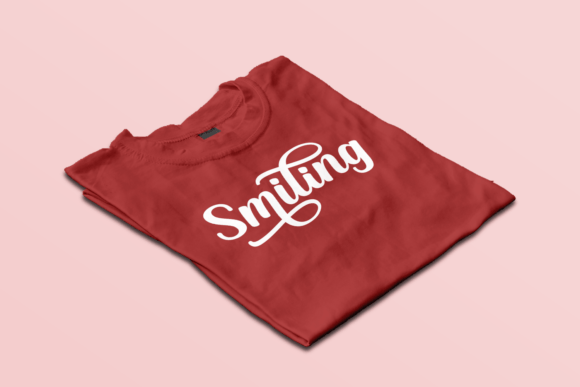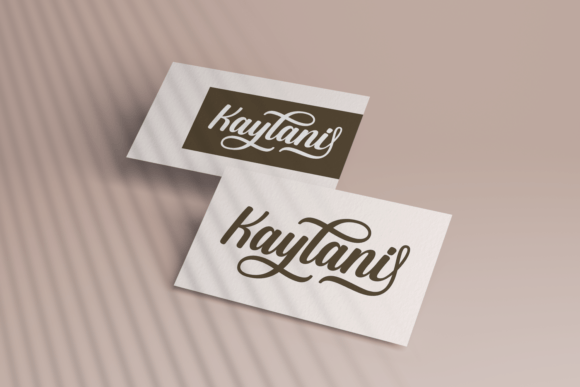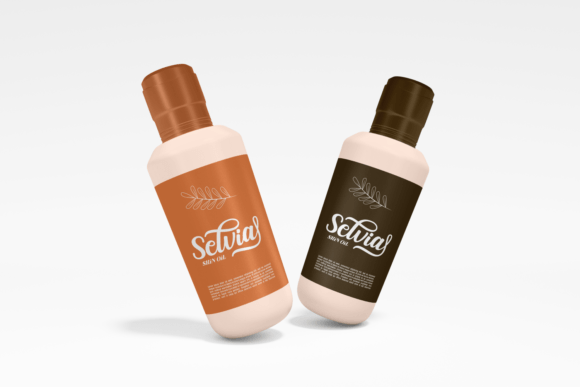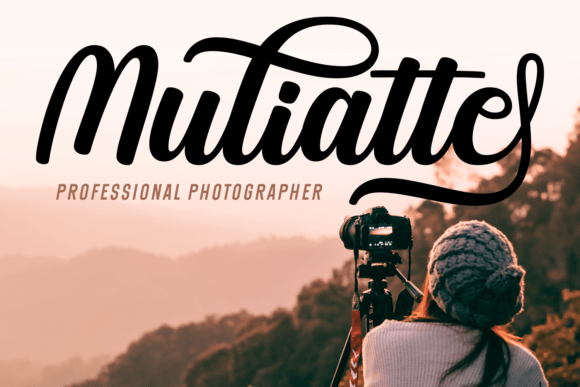
Introduction to Midona Font
Have you ever stumbled upon a design element that instantly sparks an idea for your next creative project? For many designers, this moment is a game-changer. It’s the moment when everything falls into place, and the vision for your project starts to take shape. For me, this moment came when I discovered the beautiful Midona Font. Its elegant script style and inviting nature immediately transported me to a world of love, beauty, and connection – perfect for weddings and anniversaries.
The Midona Font is more than just a design element; it’s a valuable resource for designers looking to create high-quality projects that convey emotion and sentiment. With its simple yet sophisticated design, Midona Font is an excellent choice for designers who want to add a touch of romance and elegance to their work. Whether you’re working on a wedding invitation or a romantic novel cover, Midona Font is sure to impress.
Key Features of Midona Font
- High-quality design resource with a unique, modern aesthetic, ideal for creative projects.
- Designed with versatility in mind, the Midona Font is suitable for a wide range of creative projects, from logos to editorial content.
Honest Review: Midona Font
I recently had the opportunity to work with the Midona Font for a creative project, and I must say I was impressed with its overall quality and versatility. This free download has been a valuable addition to my design resource library.
- ✨ The font’s clean and modern design makes it perfect for a variety of projects, from business cards to digital displays.
- ✨ The font’s high quality ensures that it looks great at any size, from small text to large headings.
- ⚠️ The font may not be as suitable for projects that require a more ornate or decorative font style.
- ⚠️ Some users may find the font’s minimalist design too simple for certain applications.
Overall, I’m impressed with the Midona Font and would definitely recommend it as a valuable design resource. Its high quality, clean design, and transparent background make it a great choice for a wide range of creative projects.
Tips for Getting the Most Out of Midona Font
To get the most out of Midona Font, experiment with different font sizes and styles. You can also combine Midona Font with other design elements to create a unique and eye-catching design.
Midona Font is perfect for creating designs for social media, presentations, and documents. It’s also great for creating a consistent brand identity and style.